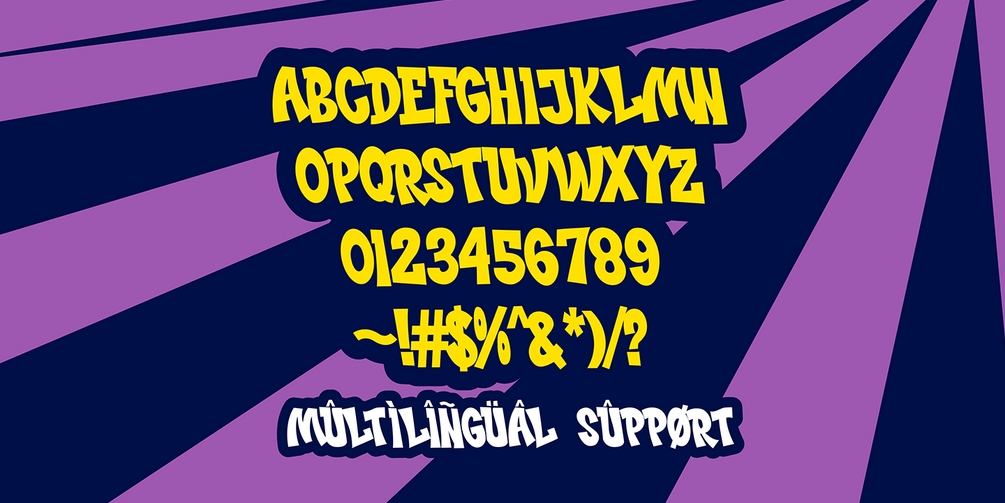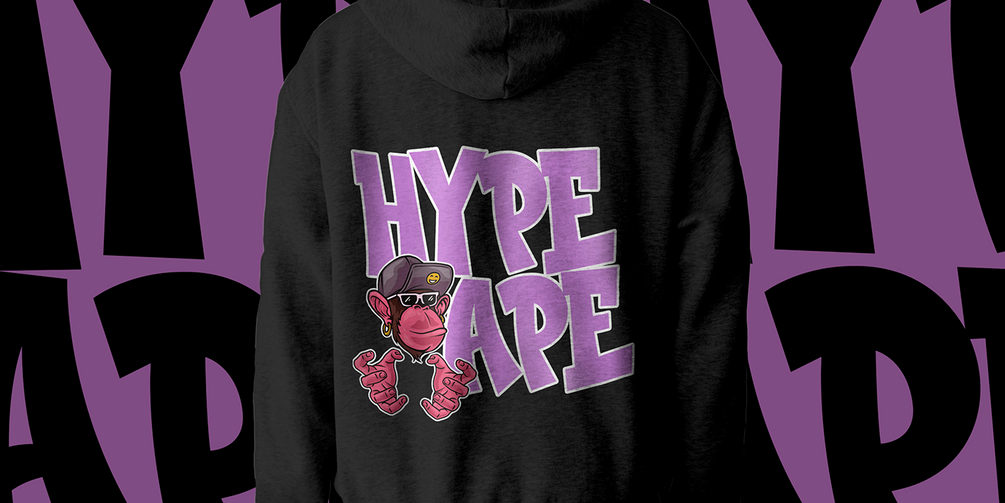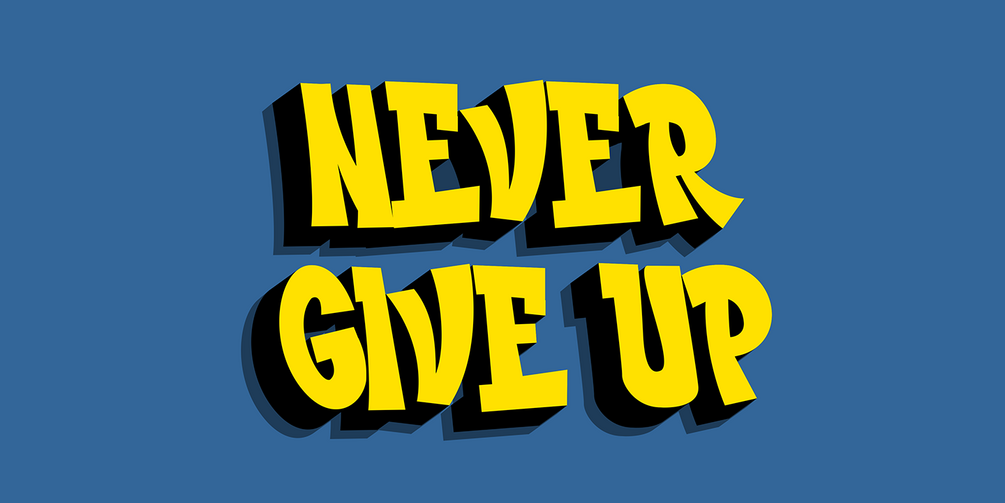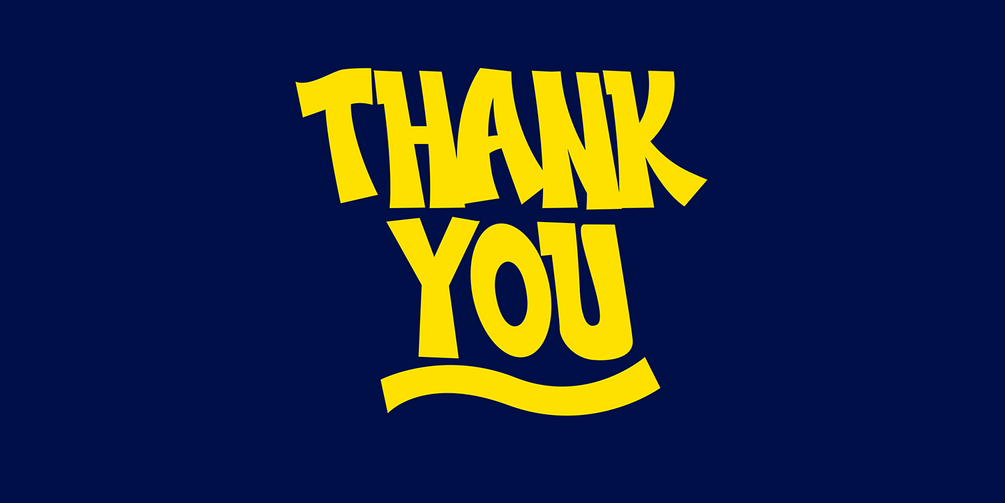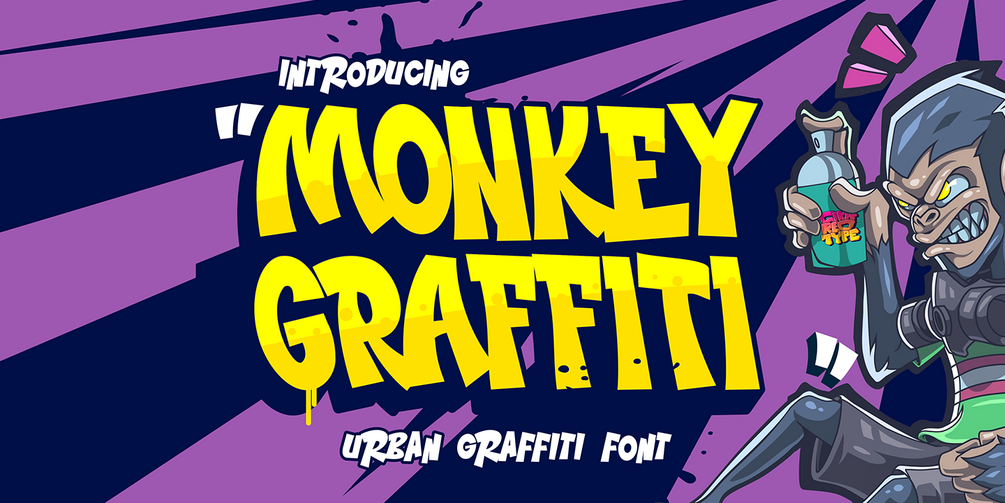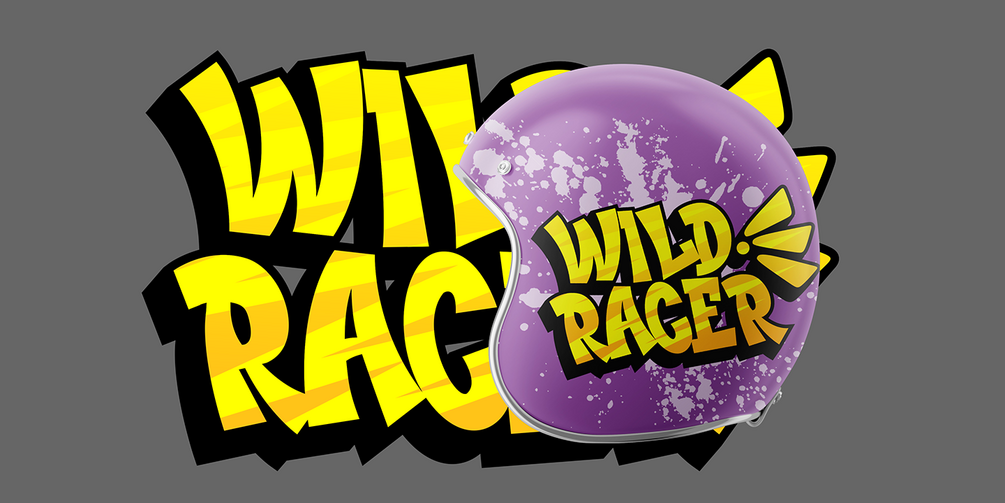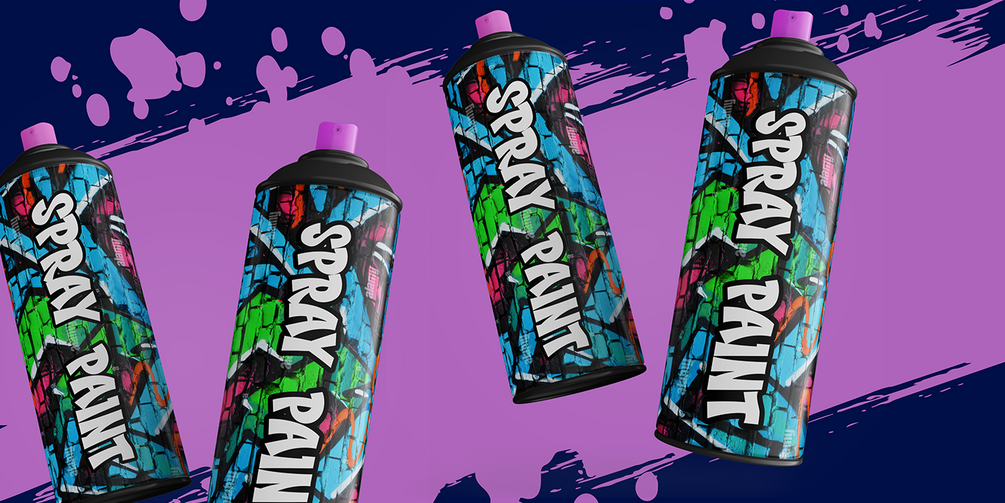
Monkey Graffiti | Urban Graffiti Font | Instant Download for Canva and Procreate Font
Monkey Graffiti is a rebellious graffiti font that combines sharp edges with flexible, fluid strokes, creating a bold and dynamic street-style aesthetic. Its edgy and energetic design makes it perfect for urban branding, streetwear, posters, album covers, skate culture, and hip-hop-inspired projects. Whether you're looking to add attitude, movement, or an authentic graffiti touch to your designs, Monkey Graffiti delivers a raw and expressive look that stands out.
• Multilingual Support
• Versatile for branding, headline, or printing product